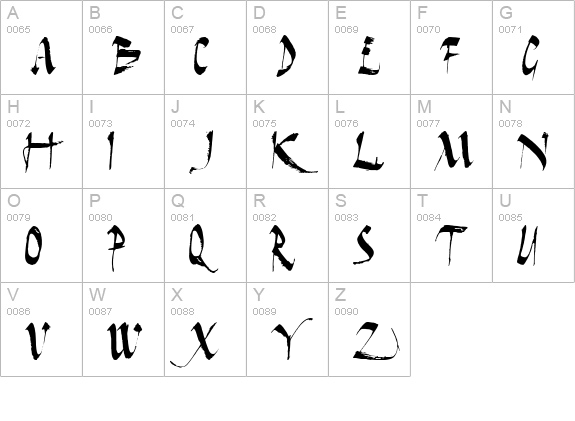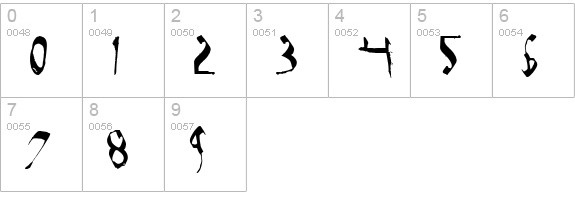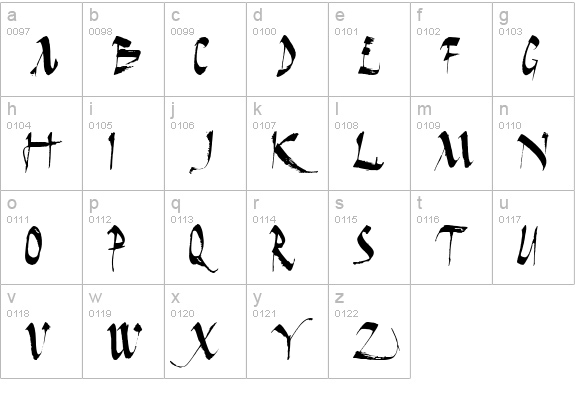
Dark Horse Font Details
The Dark Horse font is a bold and striking typeface that exudes a sense of strength and sophistication. With its unique blend of sleek lines and sharp edges, this font is perfect for making a powerful statement in any design project. Whether you're looking to add a touch of modern elegance to your branding, or want to create eye-catching headlines that demand attention, Dark Horse is sure to impress. What's even better is that Dark Horse is available for free download at FontsMarket.com. This means you can easily access this stunning font and incorporate it into your projects without any cost. Don't miss out on the opportunity to elevate your designs with the dynamic and impactful Dark Horse font - download it today and see the difference it can make!